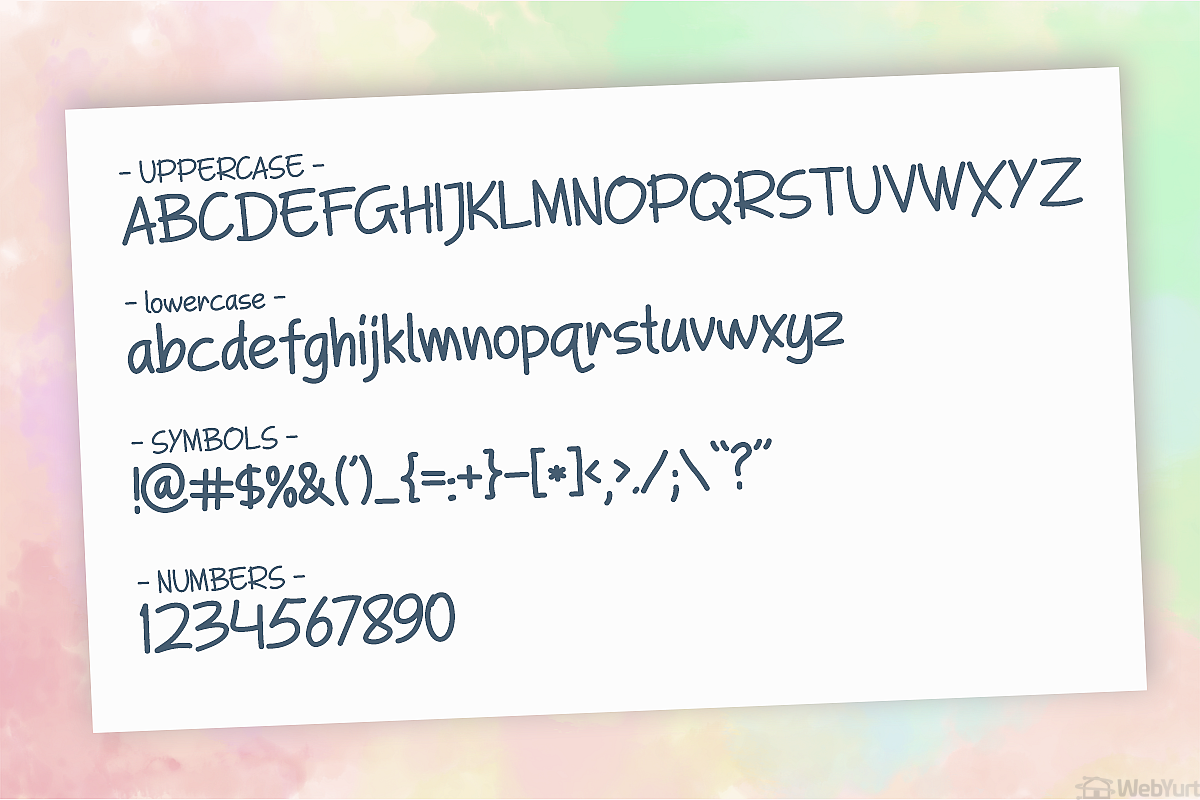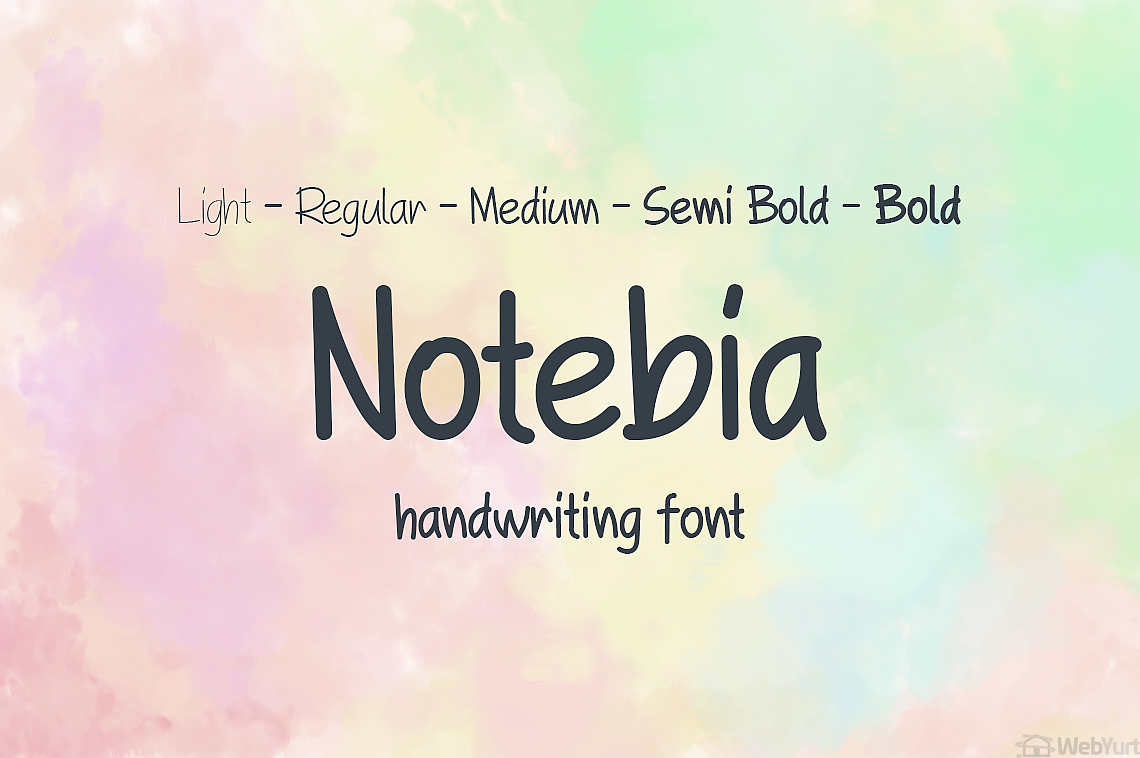
Notebia Handwritten Font
Notebia Font: Where Elegance Meets Versatility
Introducing "Notebia," a distinctive and versatile font that seamlessly blends the charm of script typography with a touch of artistic flair. This unique typeface has been meticulously crafted to cater to a wide range of design needs, making it an excellent choice for both creative and functional projects.
Key Features:
1. Script Font Elegance: Notebia brings a sense of elegance and sophistication with its cursive script elements. The flowing strokes evoke a feeling of handwritten authenticity, making it perfect for projects that require a personal and artistic touch.
2. Expressive Character Set: This font boasts an extensive character set, ensuring compatibility with various languages and special characters. Whether your content is in English, French, or beyond, Notebia has you covered.
3. Versatile Applications: Notebia's versatility knows no bounds. Use it for branding, logo design, invitations, posters, websites, or any project where a touch of elegance and expressiveness is needed.
Why Choose Notebia?
Notebia is more than just a font; it's a design tool that allows you to infuse elegance and personality into your projects. Whether you're looking to add a sense of charm to your branding or create visually appealing invitations, Notebia has the versatility and artistic charm to make your designs stand out.
Embrace the unique character of Notebia and watch as it transforms your content into a work of art that conveys your message effectively and leaves a lasting impression. Discover the perfect balance between elegance and expression with Notebia, your go-to font for all your creative endeavors.